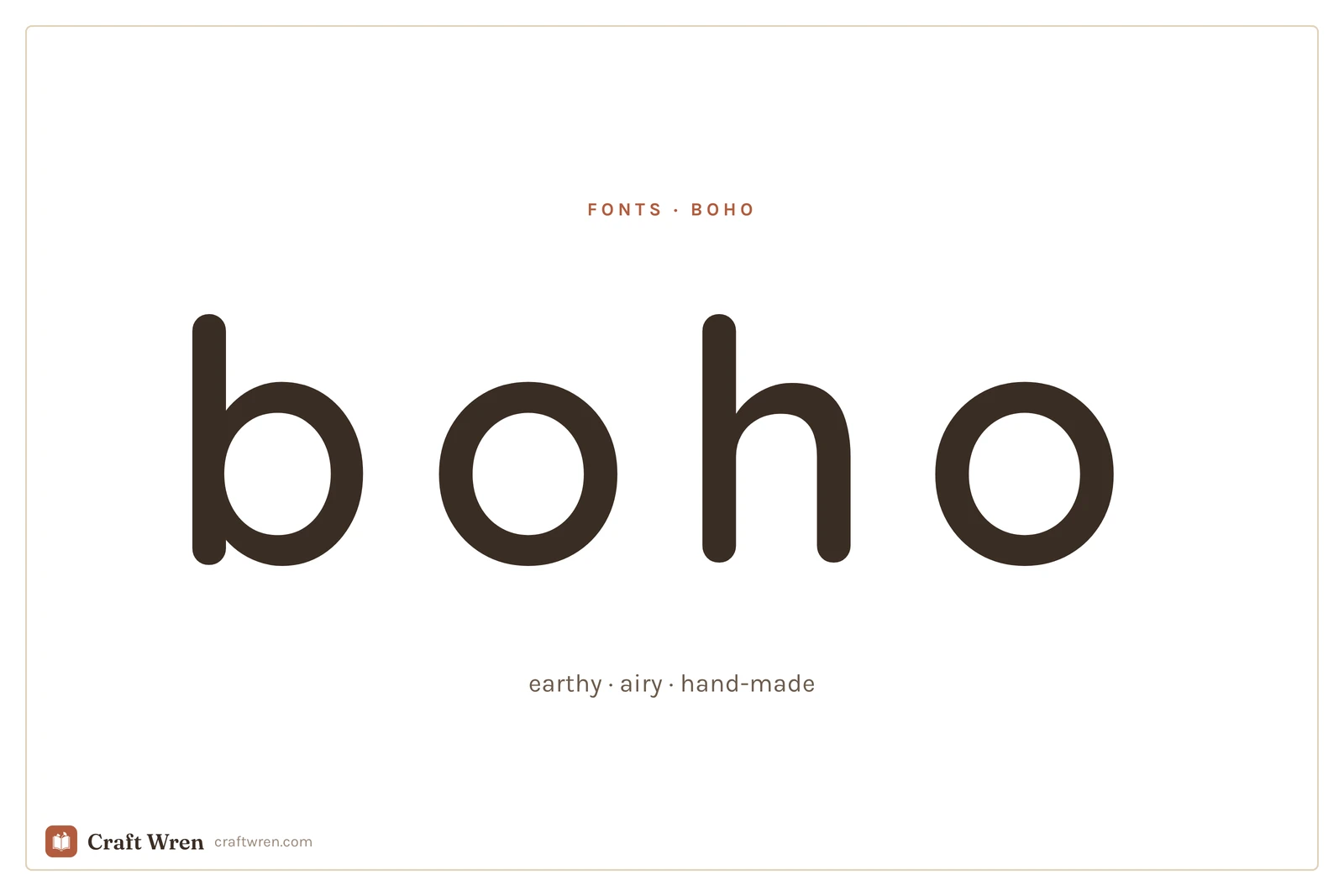
Boho Fonts: How to Get That Earthy, Hand-Made Look Without It Going Corporate
Three calm words, that is the whole print. “Let love grow,” maybe, for a bedroom wall, or the signage for a wedding buried in pampas grass and terracotta. Warm, airy, a little hand-touched, the kind of thing that looks good next to a trailing pothos. Then you set it in a clean, minimal font and the whole thing turns into the logo for a tech startup that sells oat milk, all neutral palette and not a scrap of warmth.
Boho type is sneaky that way. The aesthetic looks effortless, so people assume any plain, minimal font will do, and plain-minimal is exactly the thing that tips it into corporate. The earthy, lived-in feeling does not come from one magic font. It comes from three small qualities, and once you can name them you can coax almost any font toward boho or rescue one that went sterile.
Boho fonts are earthy, organic typefaces with an airy, hand-made feel, used for bohemian-style prints, wedding signage, and neutral decor. The look depends as much on wide spacing and a hand-drawn touch as it does on the font itself.
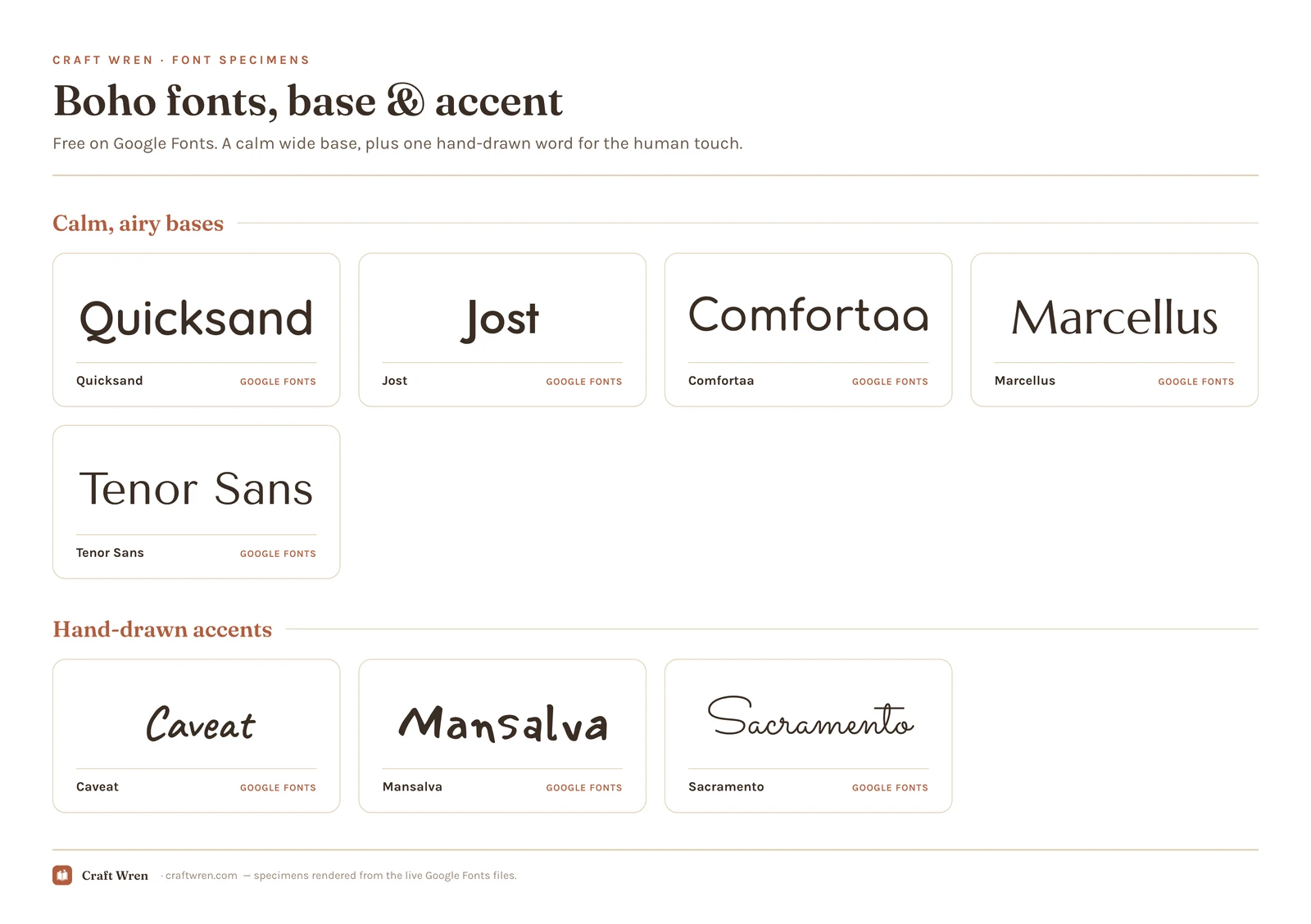
The eight boho fonts side by side
Smallest print size is measured from each font file: the letter height at which the thinnest part of the stroke drops to 0.25 mm, which is roughly where home printing starts losing the line. Screens forgive more, vinyl forgives less.
| Font | Sub-style | What it gives you | Smallest print size |
|---|---|---|---|
| Quicksand | Airy | Geometric rounded with excellent tracking | 2.1 mm |
| Jost | Airy | Crisp geometric, Futura-style wide spacing | 2.3 mm |
| Comfortaa | Warm | Rounded soft corners, geometric warmth | 2.5 mm |
| Mansalva | Handmade | More character and wobble, accent word | 2.6 mm |
| Caveat | Handmade | Friendly all-rounder, casual and slanted | 3.3 mm |
| Tenor Sans | Warm | Old-world sans, the smaller-safe of the pair | 4.3 mm |
| Marcellus | Warm | The same Scandi calm, cut as a serif | 5.0 mm |
| Sacramento | Handmade | Thin looping script, romantic feel | 5.4 mm |
Quality one: airy spacing
The fastest way to make a font read boho is not to change the font at all. It is to give the letters room to breathe. Boho lettering sits wide and open, with generous space between each letter, the typographic version of an uncluttered room with a lot of natural light. Cramped, tight spacing reads as busy and modern; loose spacing reads as calm and bohemian.
This is the cheapest move you have, and it works on fonts you already own. In Canva, set your word, then drag the letter spacing slider up until the word stretches out and relaxes. A perfectly ordinary sans serif, spaced wide and set in lowercase, suddenly looks like it belongs on a linen banner. Quicksand and Jost are great starting points because they are clean and geometric to begin with, and they take wide tracking beautifully without falling apart. The one catch is that this wants short text: three or four words look intentional, while a whole sentence stretched that wide just looks like the spacebar got stuck.
Quality two: an organic, hand-made edge
Pure geometry is what turns boho into corporate, so the second quality is a touch of the human hand somewhere in the design. Something that looks drawn rather than printed. You rarely need the whole thing handwritten, just one element that carries the imperfection.
The easy way is to pair a clean base with one loose, handwritten word. Caveat is the friendly all-rounder, casual and a little slanted without being hard to read. Mansalva has more character and wobble, good for a single accent word. Sacramento is a thin, looping signature script for when you want the hand-made bit to feel romantic rather than casual. All three are free on Google Fonts. Use one of them for the word that matters, “gather,” “stay wild,” the couple’s names, and keep the rest calm and clean.
Quality three: warm restraint, not stark
Boho is earthy and quiet, not high-contrast or loud, so the third quality is a kind of softness in the letters themselves. A font with gently humanist edges reads warmer than a hard, mechanical one. Comfortaa brings rounded, soft corners to the geometric look. Marcellus and Tenor Sans are the elegant, slightly old-world faces that lean into the modern, Scandi-adjacent side of boho without ever feeling cold.
This is also where the most common boho mistake hides. Reach for a font that is too tidy, too perfectly geometric, too evenly weighted, and the design stops reading as boho and starts reading as a yoga-studio logo. A little softness, a little warmth, one element slightly off-grid: that is the difference between earthy and clinical.
Putting the three together
Almost every boho design you have admired is really two fonts working together: a calm, wide-spaced base doing the heavy lifting, plus one hand-drawn word as the accent. The base brings the airy restraint, the script brings the human touch, and between them you land all three qualities at once.
Is a bohemian font the same as a boho font?
Yes, boho is just the nickname. Sellers tag the same fonts both ways, so search both words on a marketplace and more of the shelf turns up. Either way, you are looking for the same thing: airy spacing and a hand-made edge.
Can I use a boho font generator?